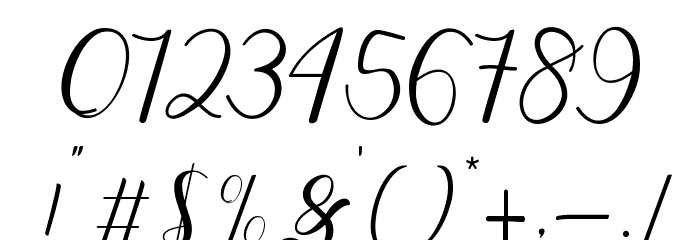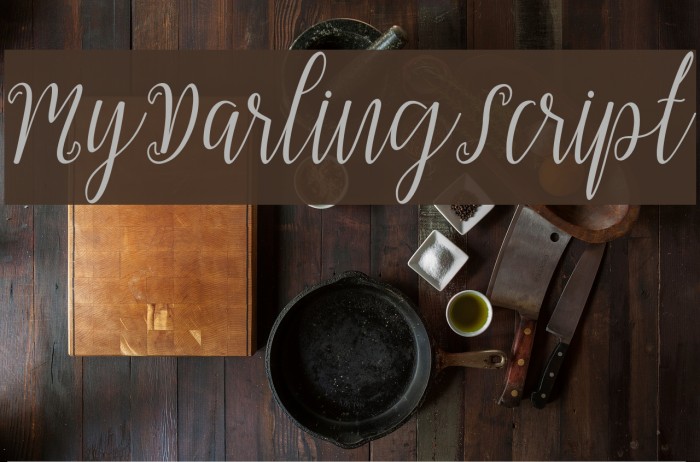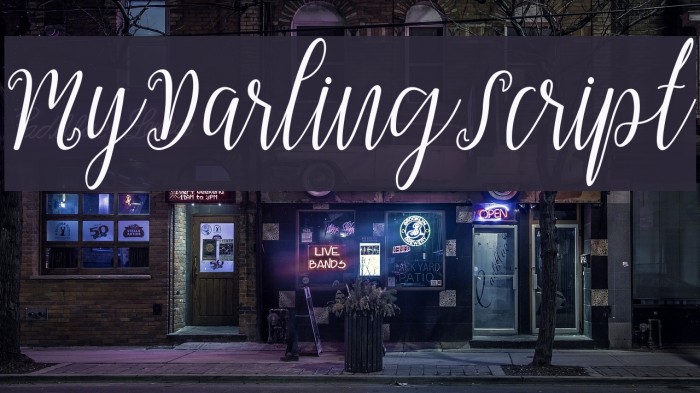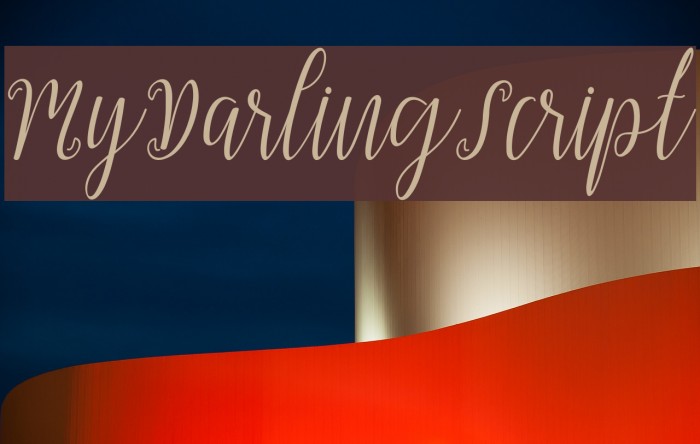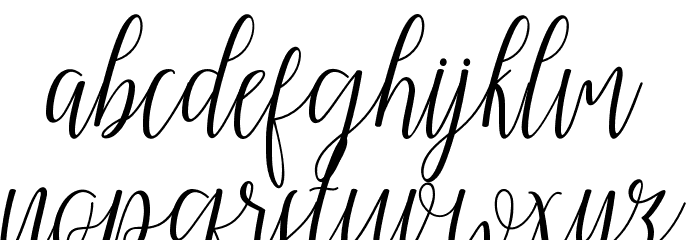
MyDarlingScript Font
MyDarlingScript Description
This elegant script font features a flowing, cursive style with a modern twist. The uppercase letters are characterized by their graceful loops and swirls, giving them a sophisticated and artistic appearance. The lowercase letters maintain a consistent flow, with elongated ascenders and descenders that enhance the font's fluidity. The numerals are stylish and complement the overall aesthetic, while the special characters are thoughtfully designed to match the script's elegance. This font's delicate strokes and smooth curves make it ideal for projects that require a touch of refinement and creativity.
| Use Case | Logos, Invitations, Decorative text |
| Proposed Projects | Ideal for wedding invitations, greeting cards, branding, and elegant logo designs. |